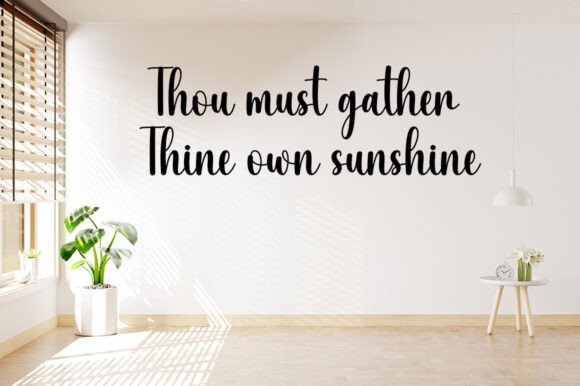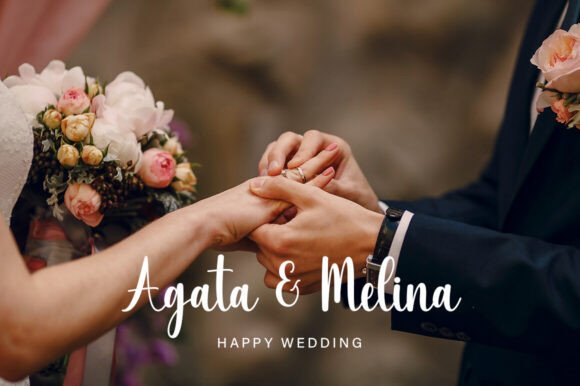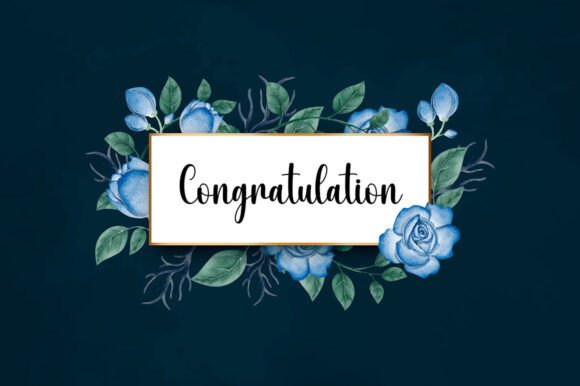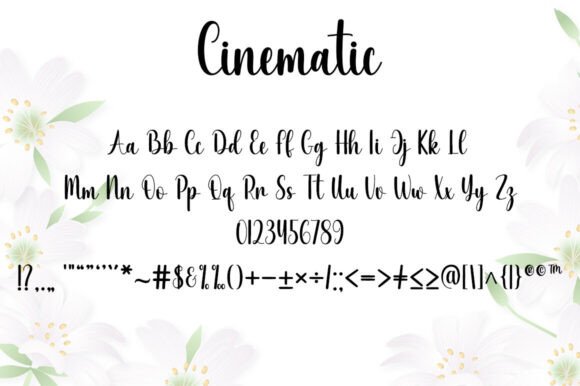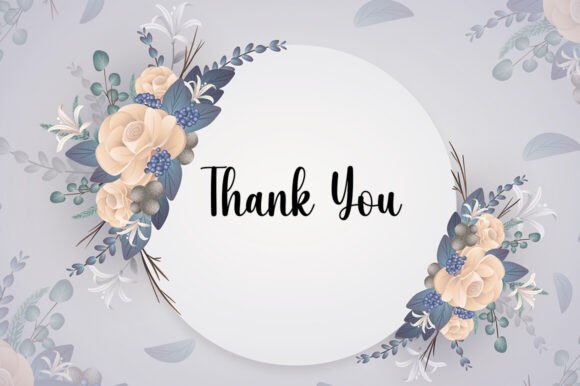
Cinematic Font: Elevate Your Design with a Touch of Elegance
In the world of typography, fonts play a crucial role in conveying the tone and aesthetic of a design. For designers and crafters seeking to add a touch of sophistication and uniqueness to their work, the Cinematic Font is an excellent choice. This delicate handwritten font is carefully crafted to bring a cool and distinctive vibe to various design projects.
What is Cinematic Font?
Cinematic is a beautiful, handwritten font designed to bring a sense of elegance and refinement to your designs. Its intricate strokes and flowing lines create a sense of movement and fluidity, making it perfect for projects that require a touch of sophistication. Whether you’re working on a letter, invitation, food product label, or title, Cinematic Font is an excellent choice.
Key Features of Cinematic Font
- Handwritten with love: Cinematic Font is carefully crafted with precision and attention to detail, giving it a personal and human touch.
- Delicate and elegant: The font’s intricate strokes and flowing lines create a sense of refinement and sophistication.
- Cool and unique: Cinematic Font has a distinctive style that sets it apart from other fonts, making it perfect for designers and crafters seeking to add a touch of personality to their work.
- Versatile: This font can be used for a wide range of design projects, including letters, invitations, food products, titles, and more.
Uses of Cinematic Font
Cinematic Font is an incredibly versatile font that can be used in various design projects. Here are some ideas to get you started:
- Invitations and greeting cards: Add a touch of elegance to your invitations and greeting cards with Cinematic Font.
- Food product labels: Use Cinematic Font to create beautiful and eye-catching labels for your food products.
- Titles and headings: Add a touch of sophistication to your titles and headings with Cinematic Font.
- Branding and packaging: Use Cinematic Font to create a unique and memorable brand identity.
- Stationery and journals: Add a touch of elegance to your stationery and journals with Cinematic Font.
Why Choose Cinematic Font?
With so many fonts available, why choose Cinematic Font? Here are a few reasons why designers and crafters love this font:
- Unique and distinctive: Cinematic Font has a unique style that sets it apart from other fonts.
- Elegant and sophisticated: This font adds a touch of refinement and sophistication to any design project.
- Easy to read: Despite its intricate strokes, Cinematic Font is easy to read and understand.
- High-quality: This font is carefully crafted with precision and attention to detail, ensuring a high-quality design.
Tips for Using Cinematic Font
To get the most out of Cinematic Font, here are a few tips to keep in mind:
- Use it sparingly: Cinematic Font is a statement font, so use it sparingly to add emphasis to your design.
- Experiment with colors: Try pairing Cinematic Font with different colors to create a unique and eye-catching design.
- Mix and match: Experiment with pairing Cinematic Font with other fonts to create a unique and interesting design.
Cinematic Font is a beautiful and elegant handwritten font that can elevate your design projects to the next level. With its intricate strokes, flowing lines, and unique style, this font is perfect for designers and crafters seeking to add a touch of sophistication and personality to their work. Whether you’re working on a letter, invitation, food product label, or title, Cinematic Font is an excellent choice.